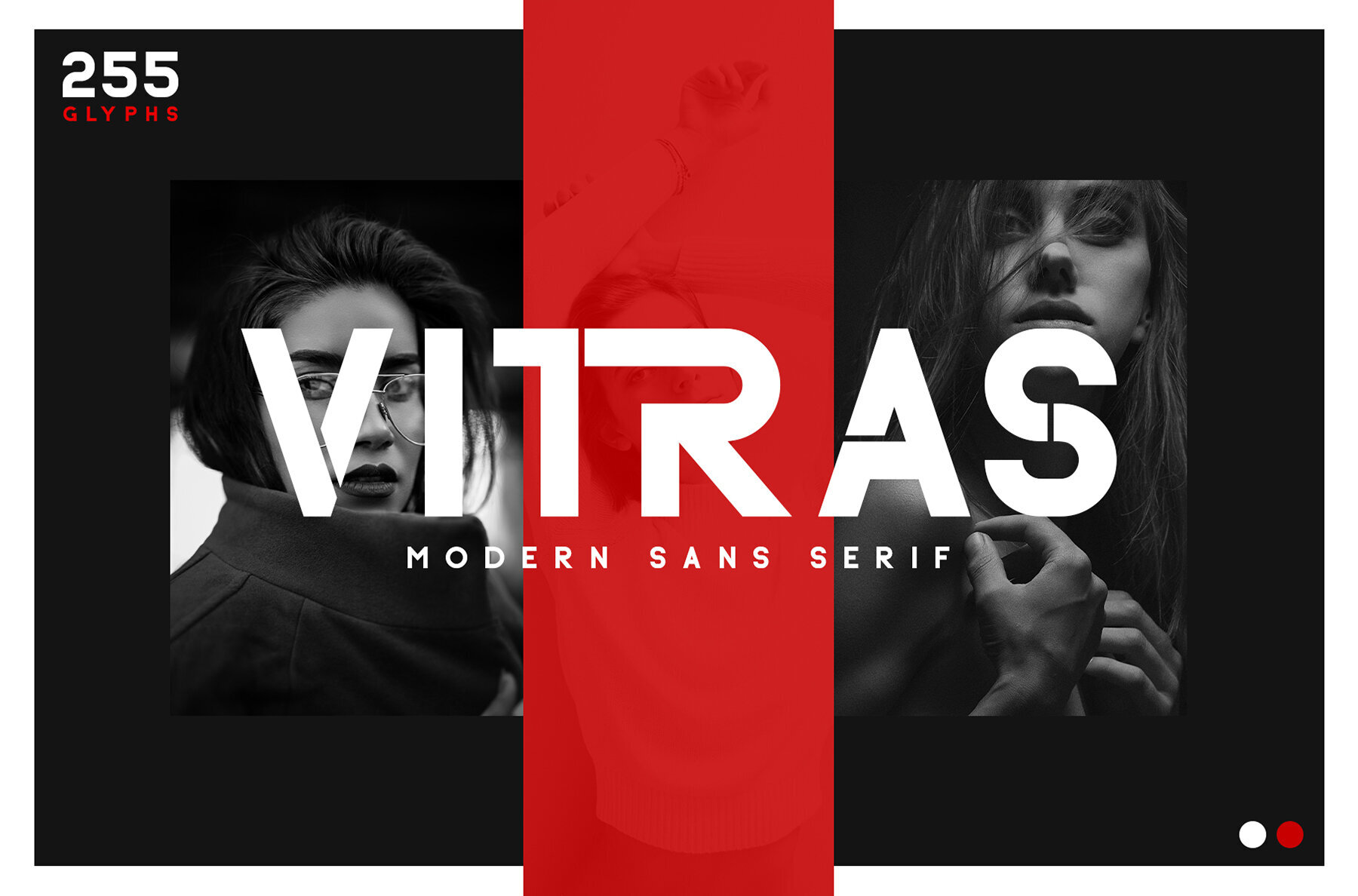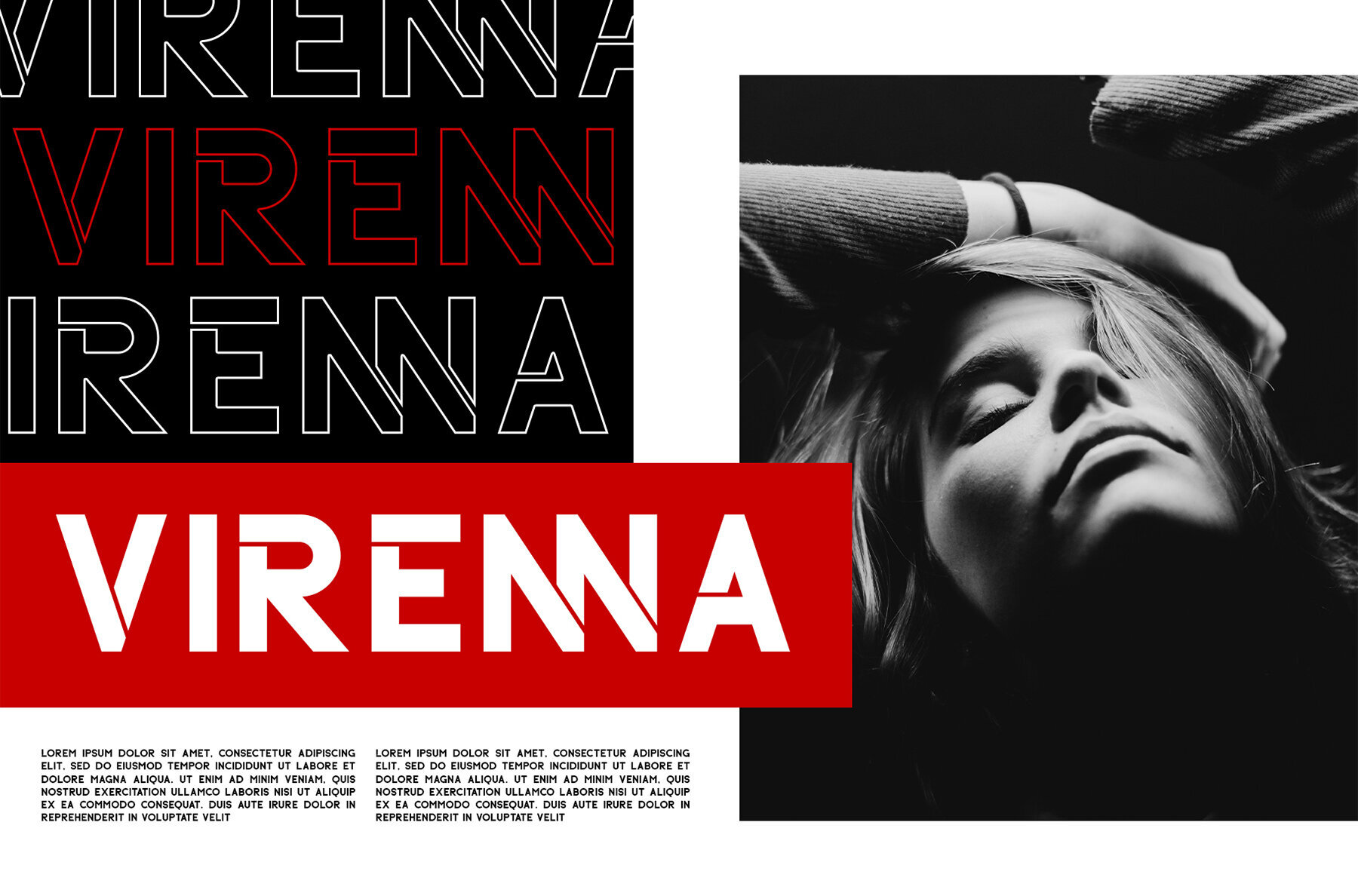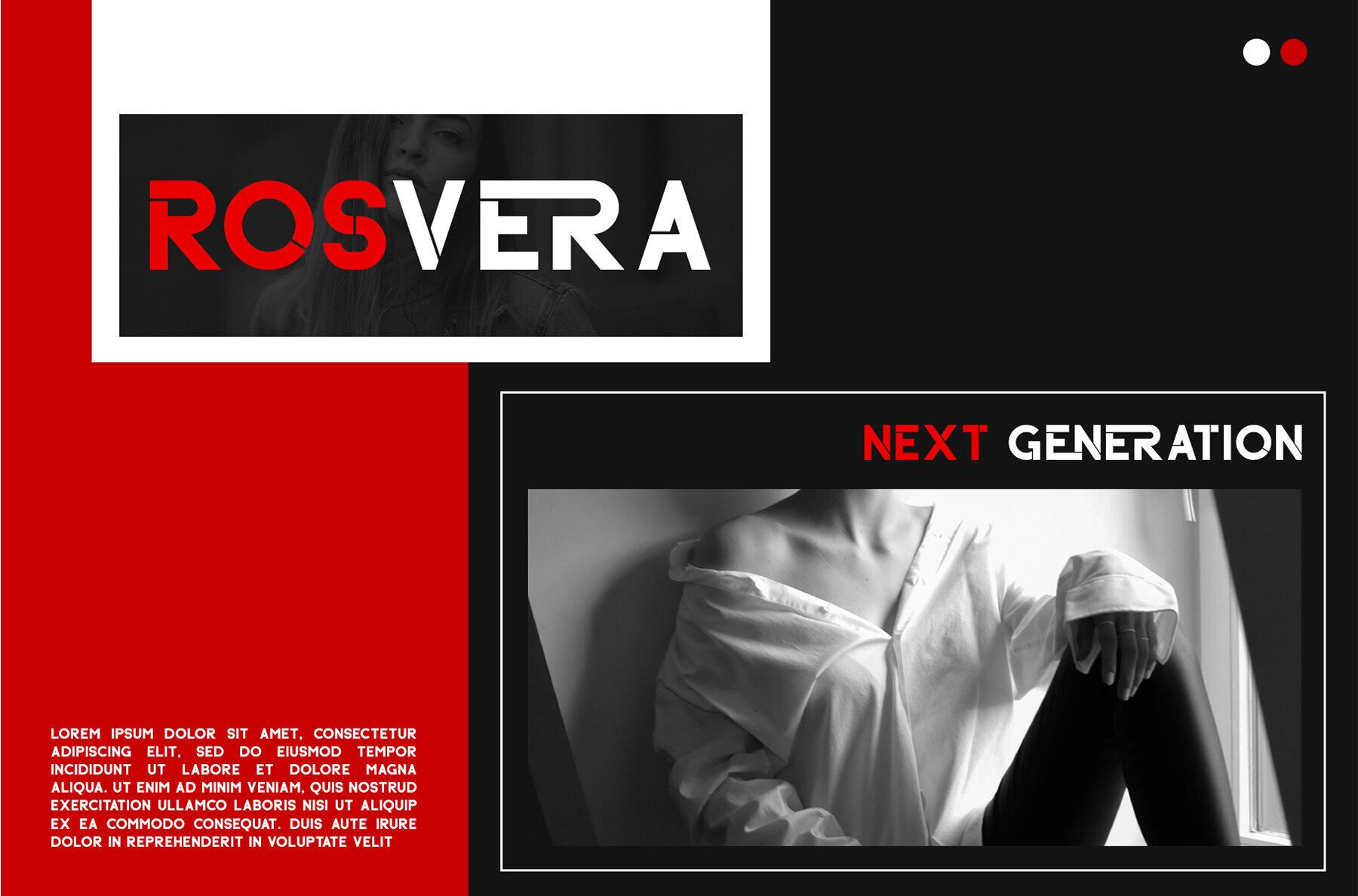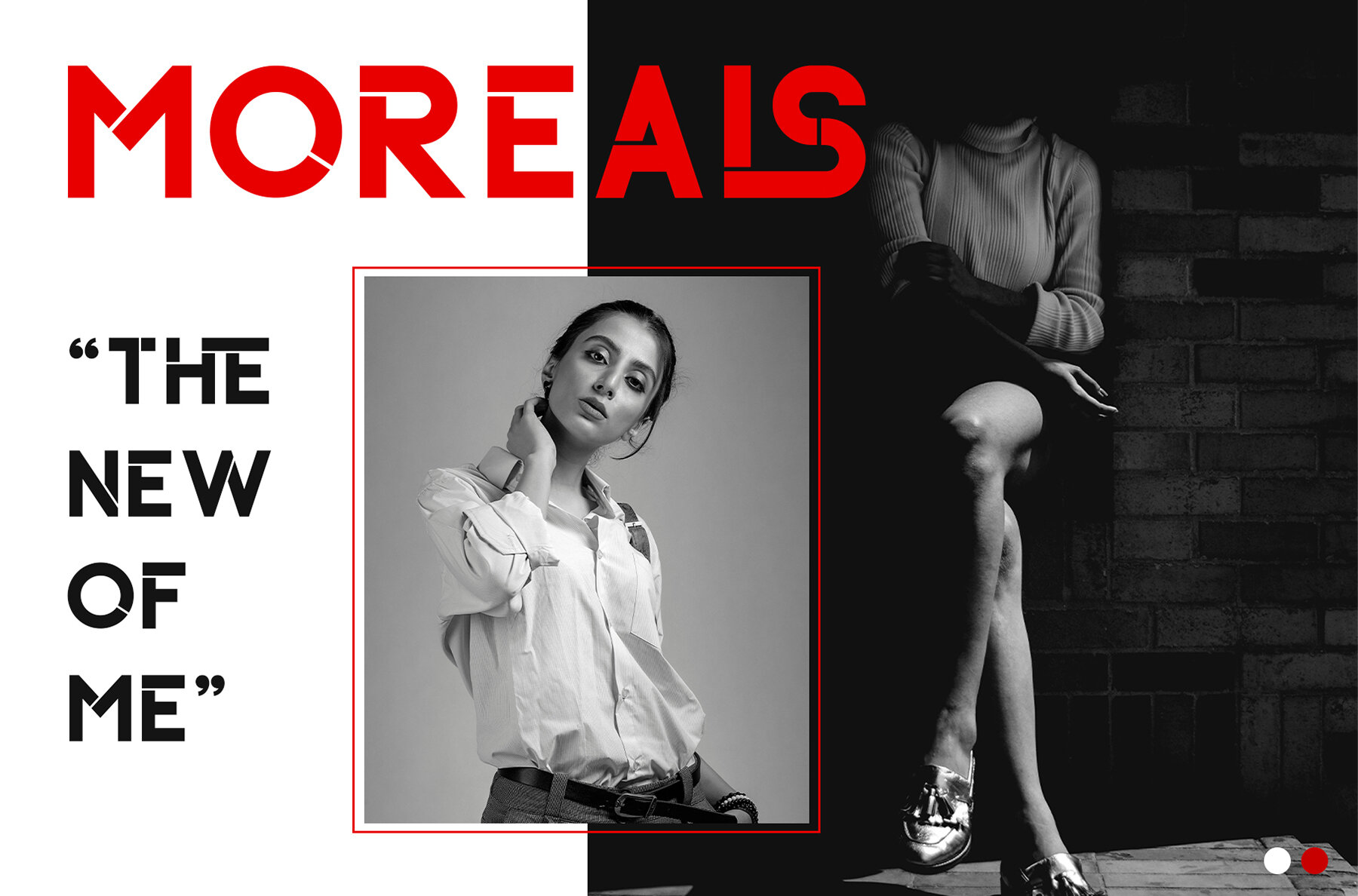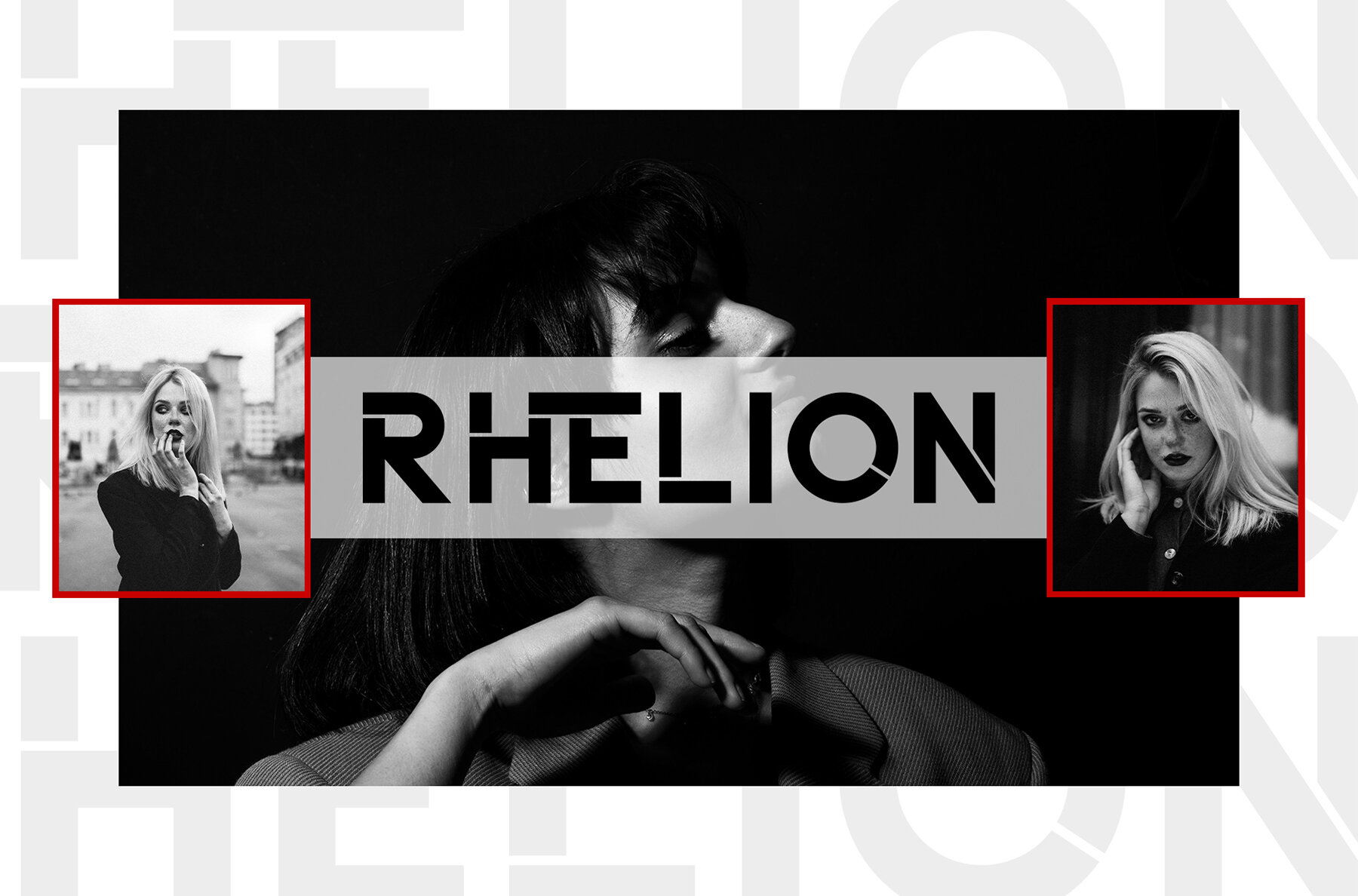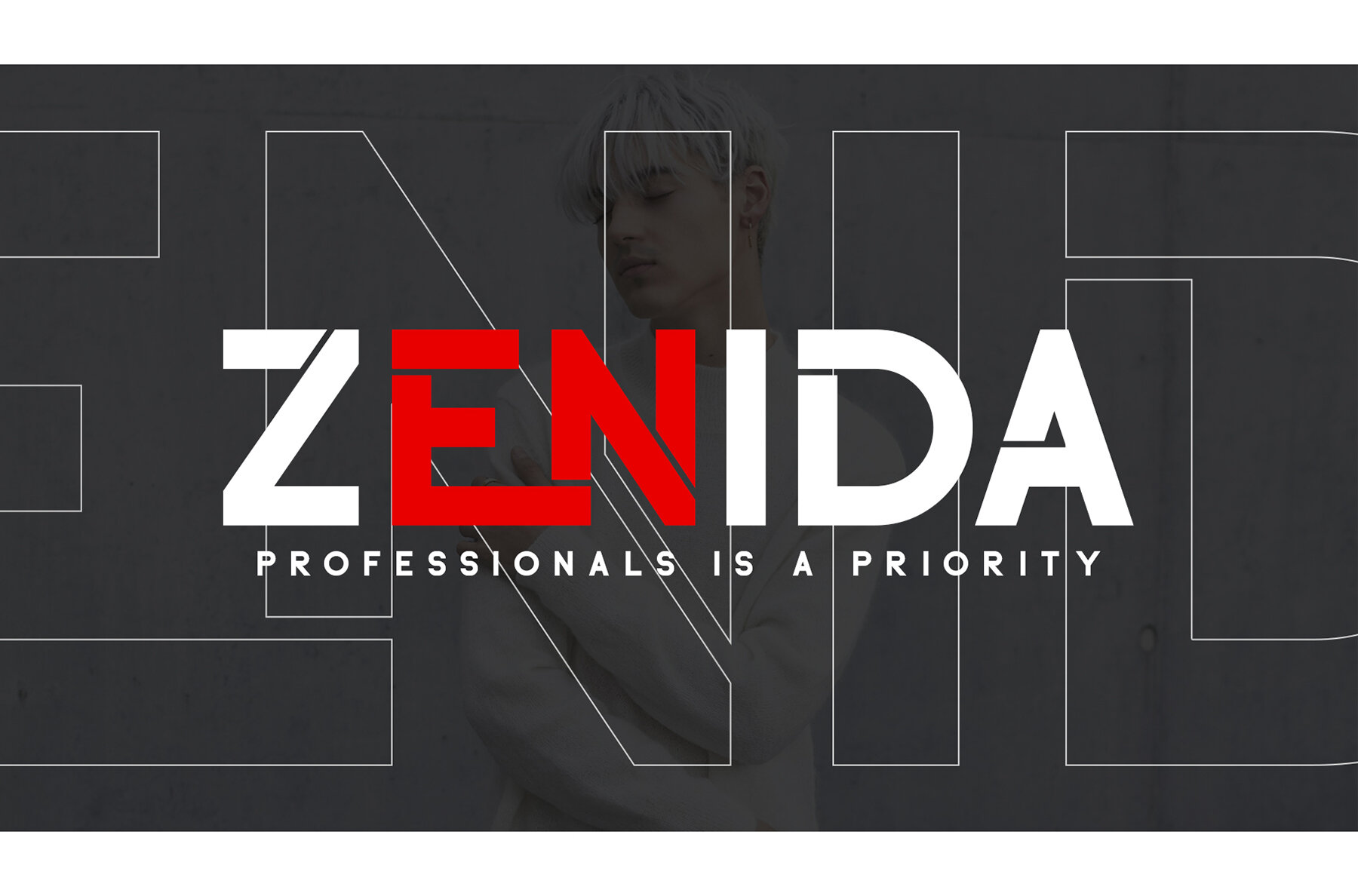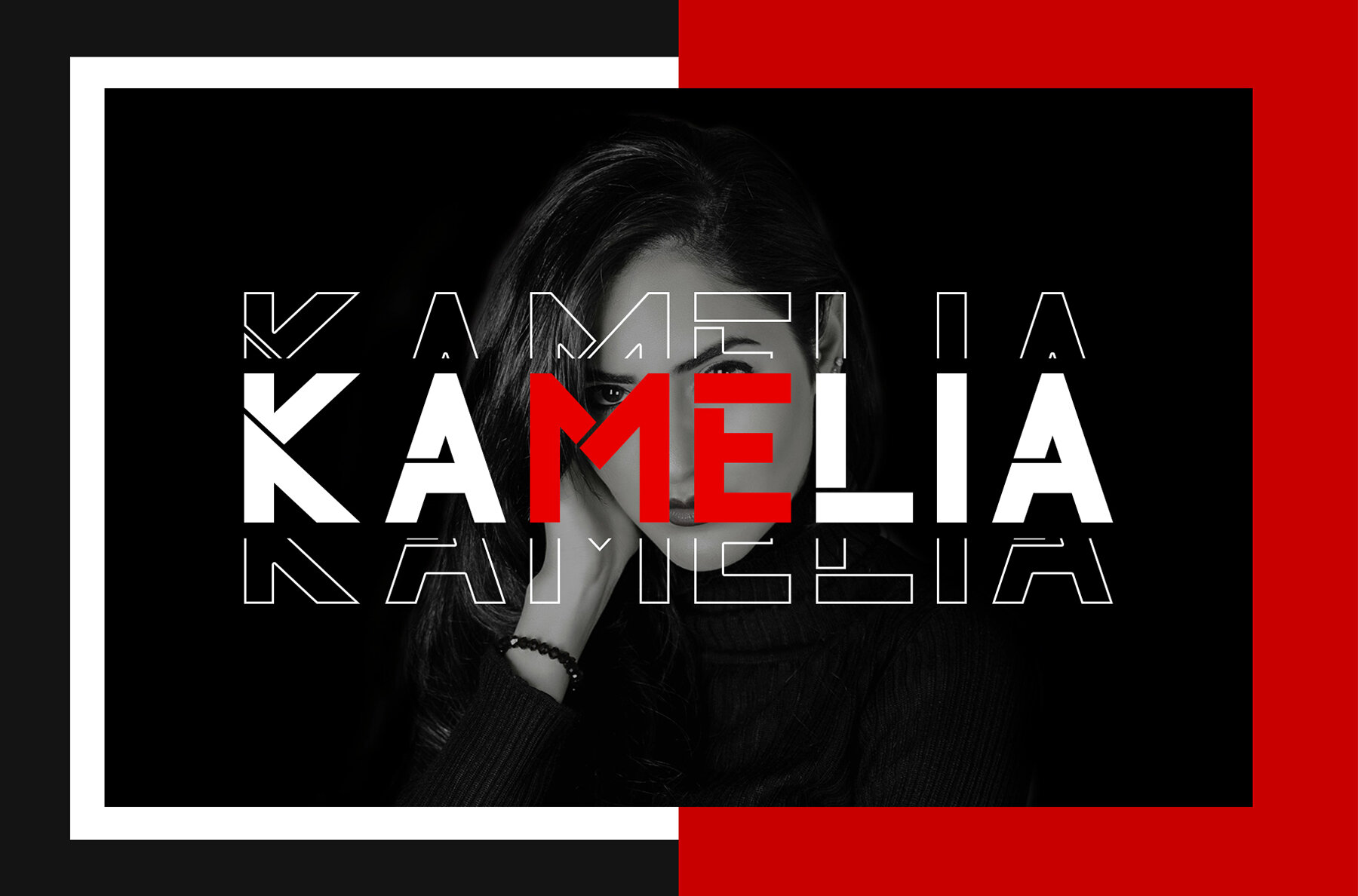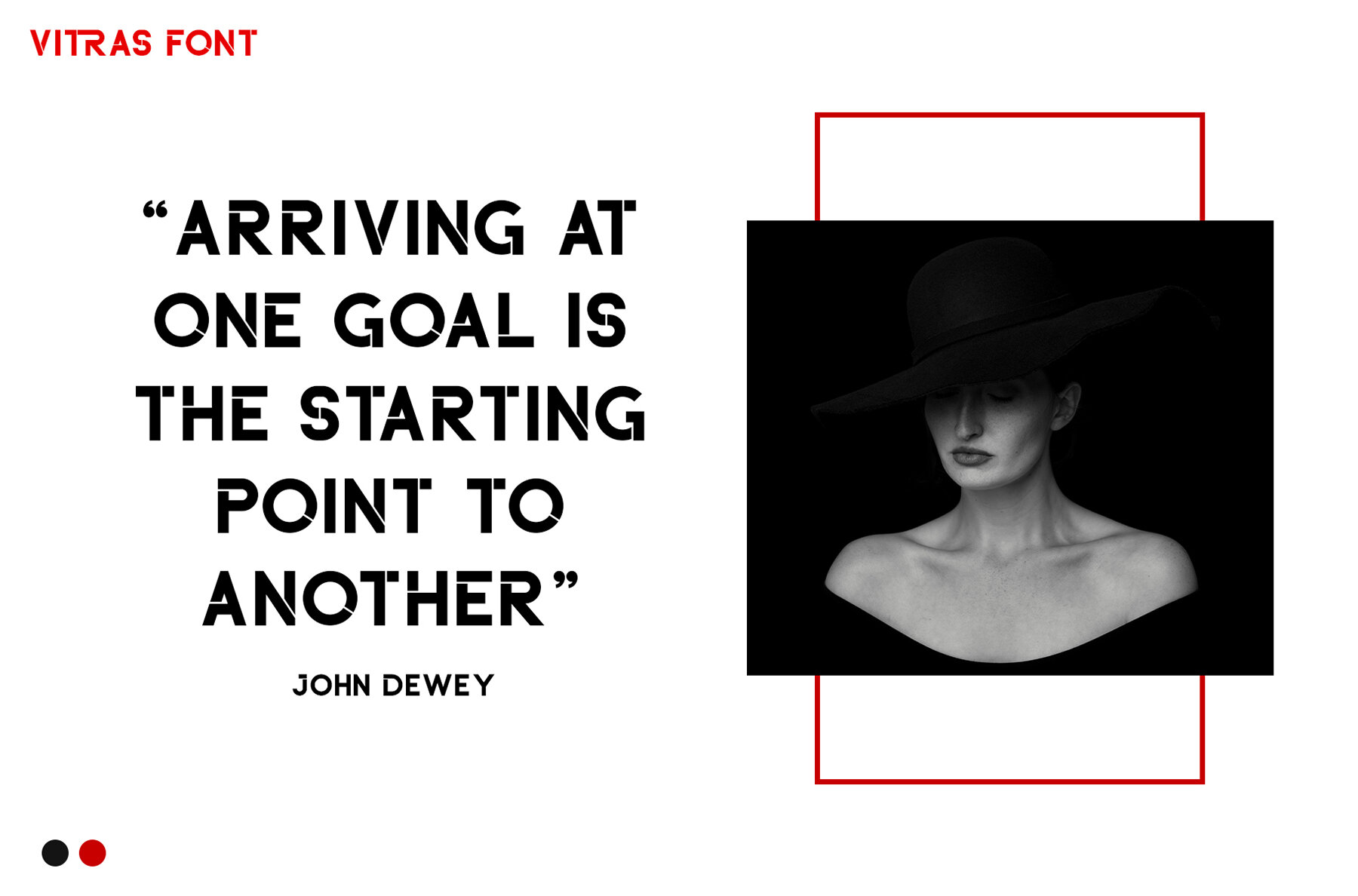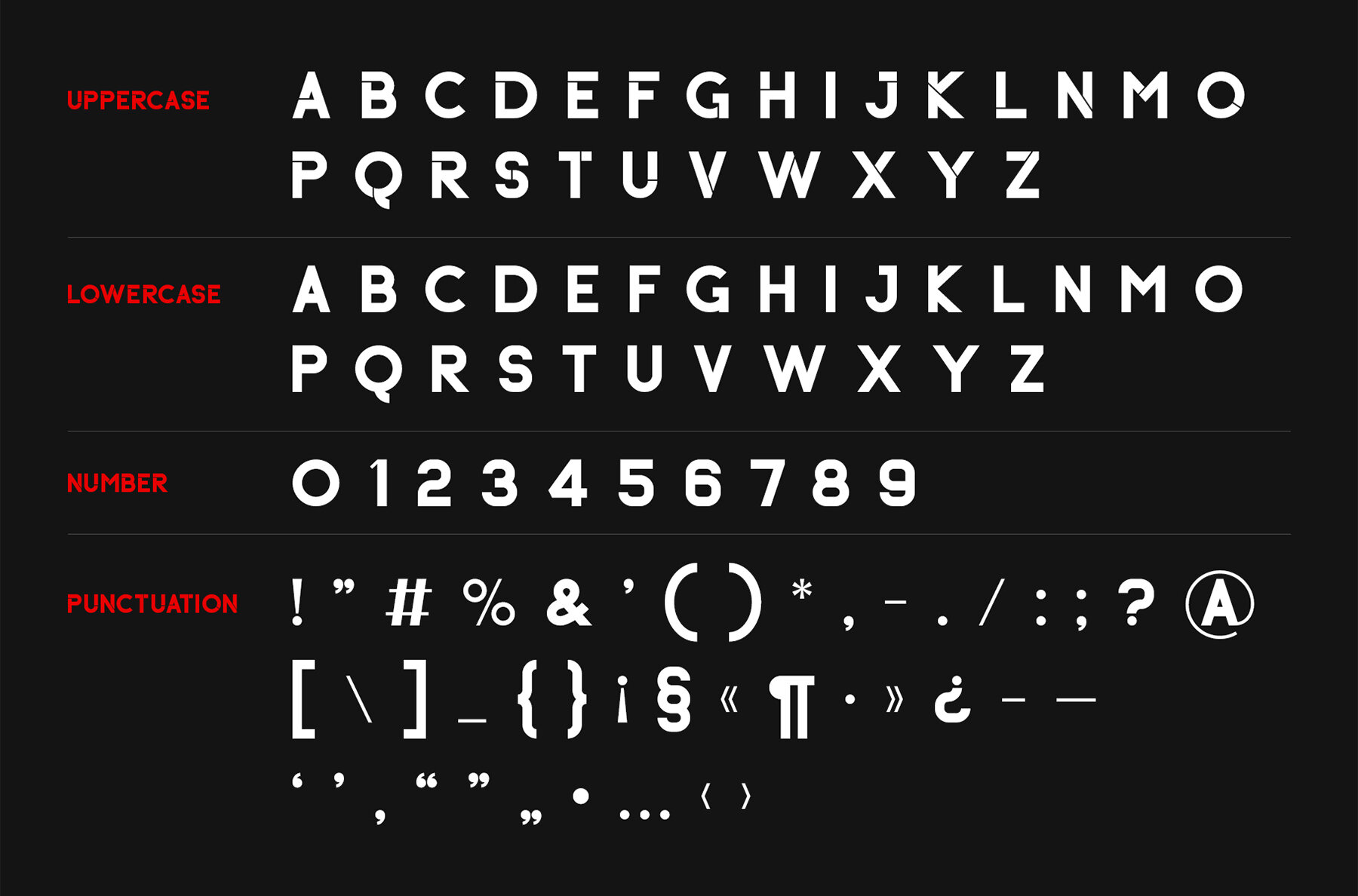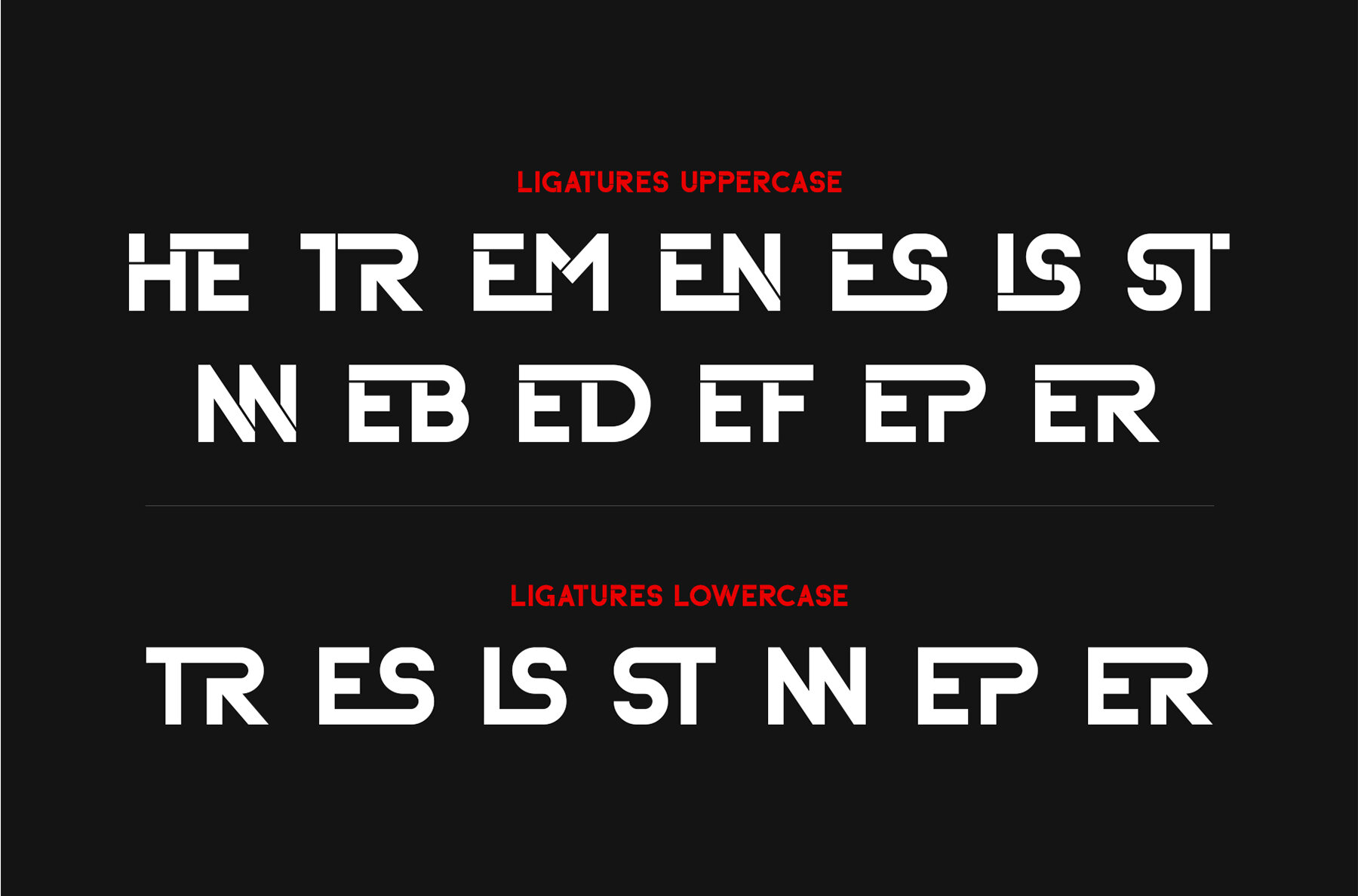
Vitras Font
Vitras Regular
This bold sans-serif font is characterized by its clean and geometric design, making it highly legible and ideal for modern and tech-oriented design projects. Its weight and simplicity make it perfect for use in headlines, logos, branding, posters, and advertising. Additionally, it's well-suited for web design, UI/UX applications, and corporate materials.